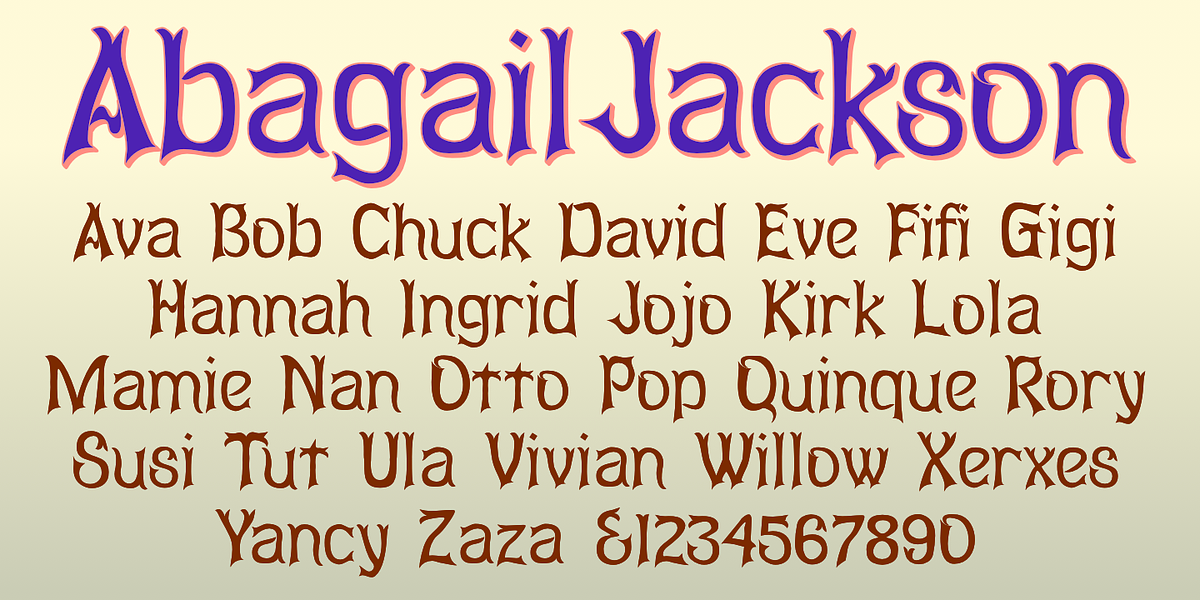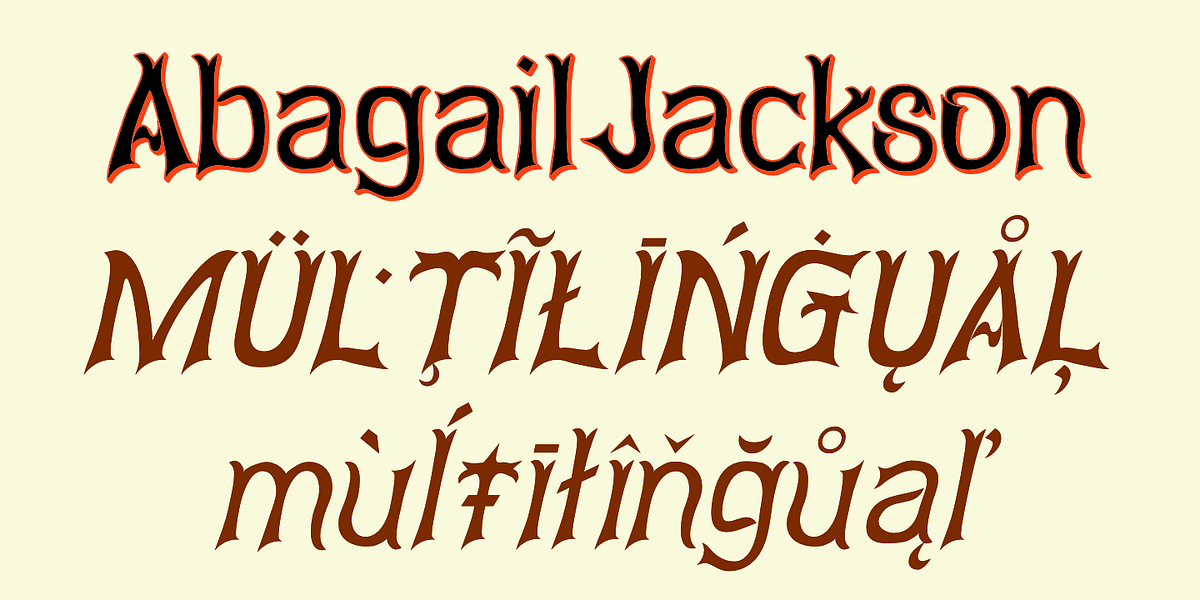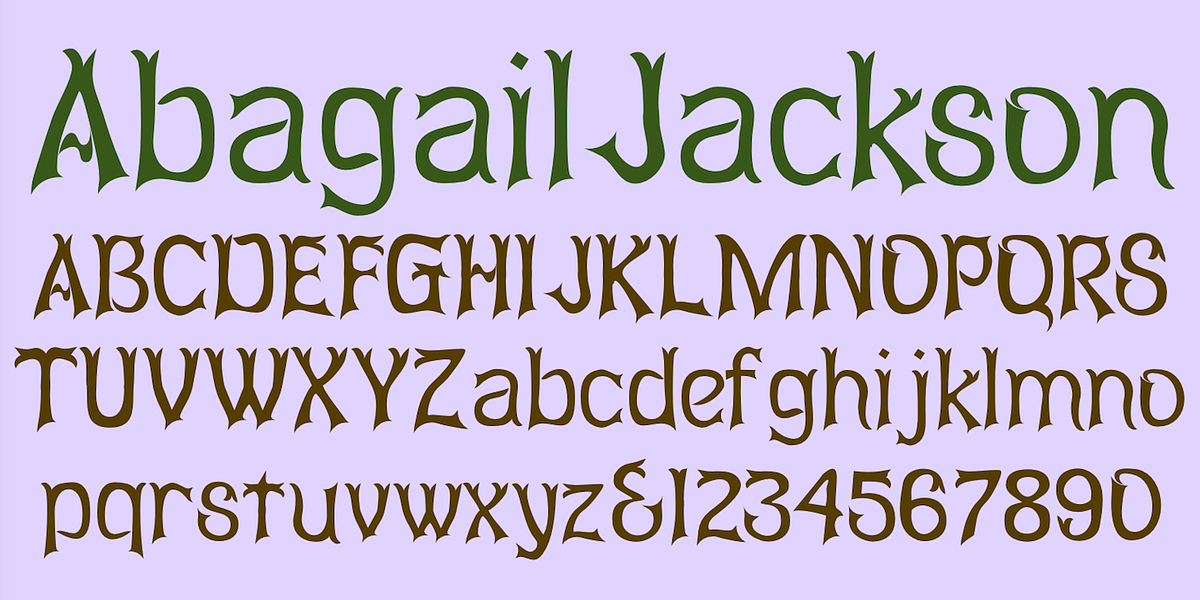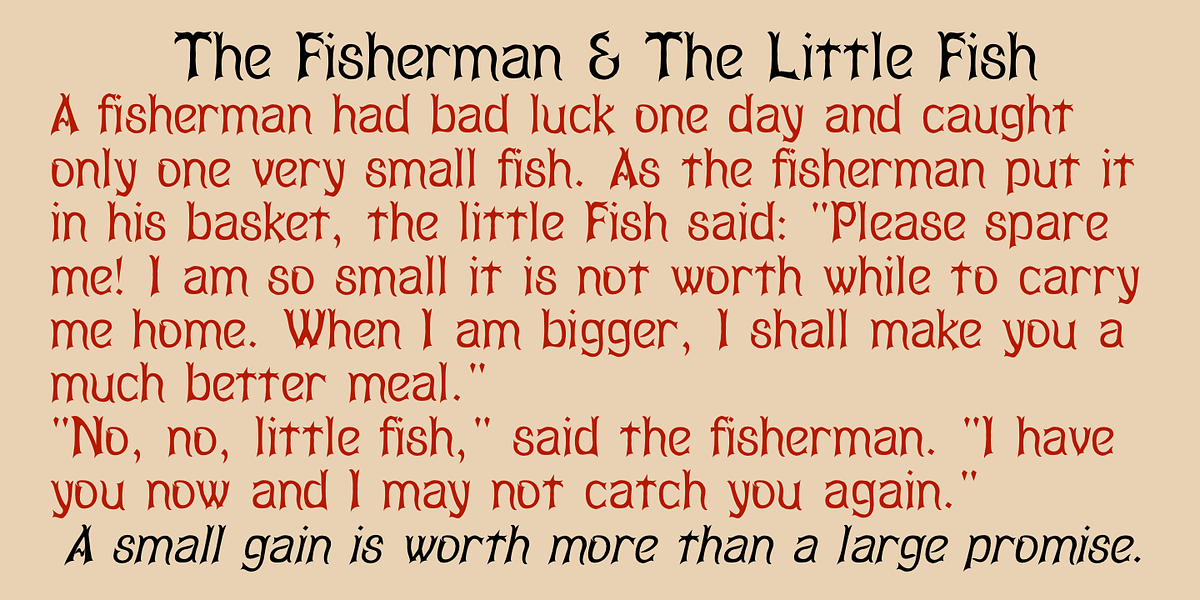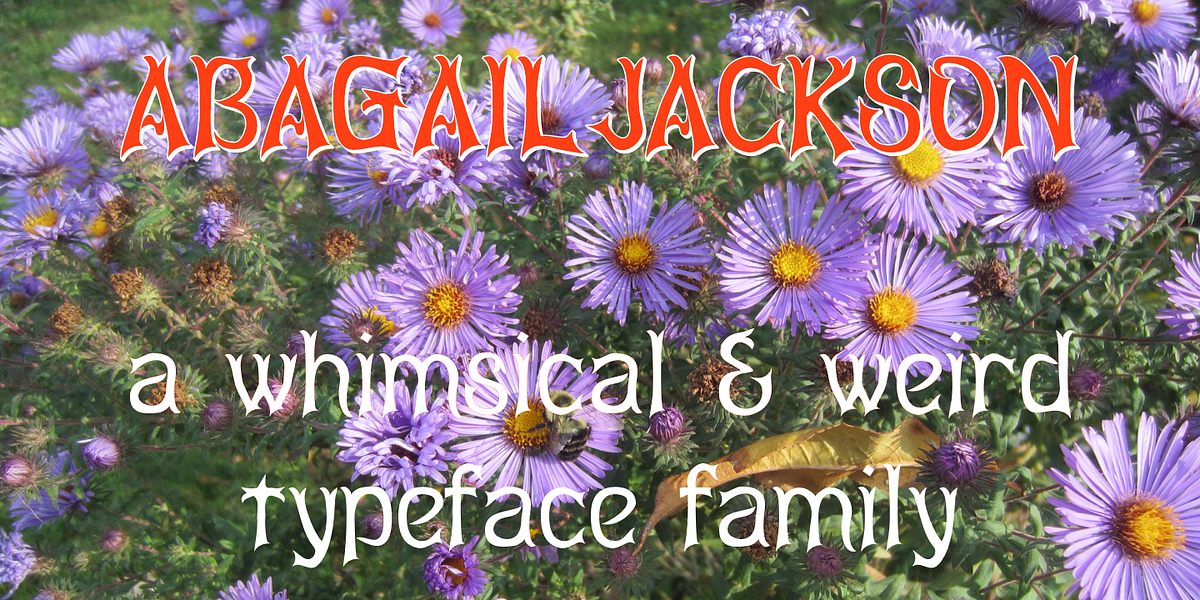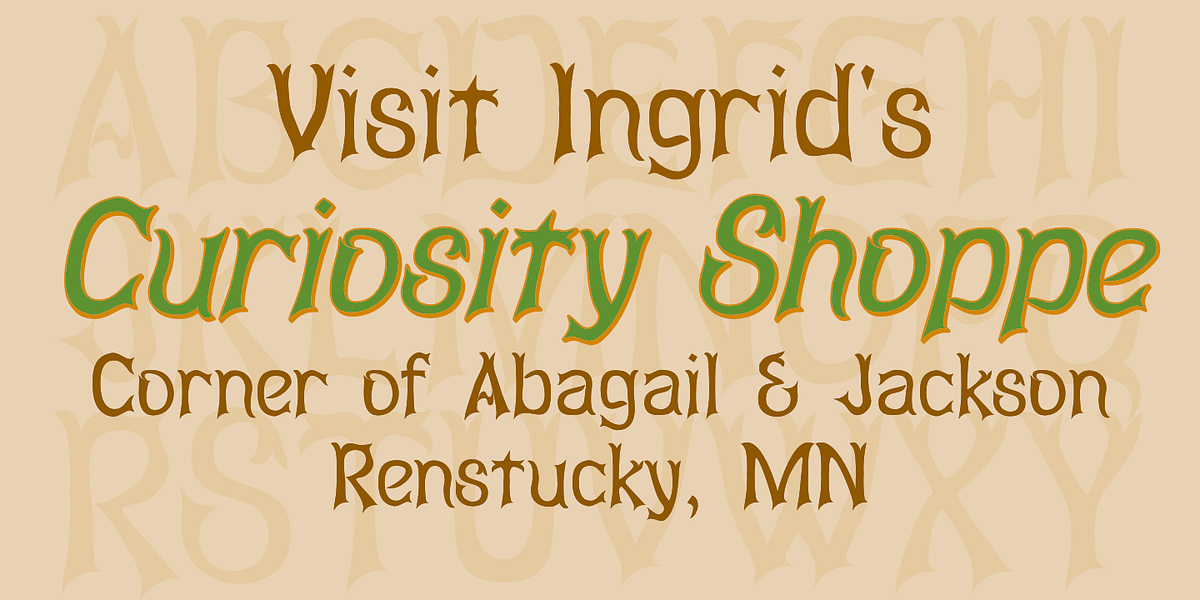
AbagailJackson
Abagail Jackson is a hand-drawn display font with a whimsical and playful personality. Its shadowed effect adds depth and visual interest, making it suitable for eye-catching posters and titles. The font evokes a sense of fantasy and creativity.